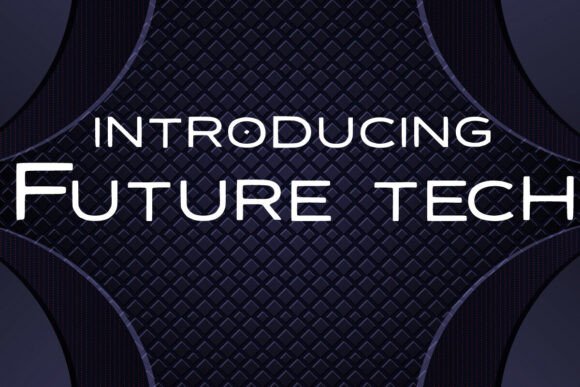
Introduction to Future Tech Font
Immerse yourself in the realm of digital wonders with our Future Tech Font.
Perfectly tailored for an array of applications, this font sets the tone in T-shirt designs, branding endeavors, and magazine layouts Whether you’re crafting an intricate SVG file, personalizing greeting cards, or engaging in the creative flow of Cricut projects – Future Tech Font is your trusted companion.
Key Features of Future Tech Font
Why Choose Future Tech Font?
Future Tech Font offers exceptional quality and versatility, making it a valuable addition to your design toolkit. Whether you’re creating for personal projects or commercial use, Future Tech Font delivers professional results.